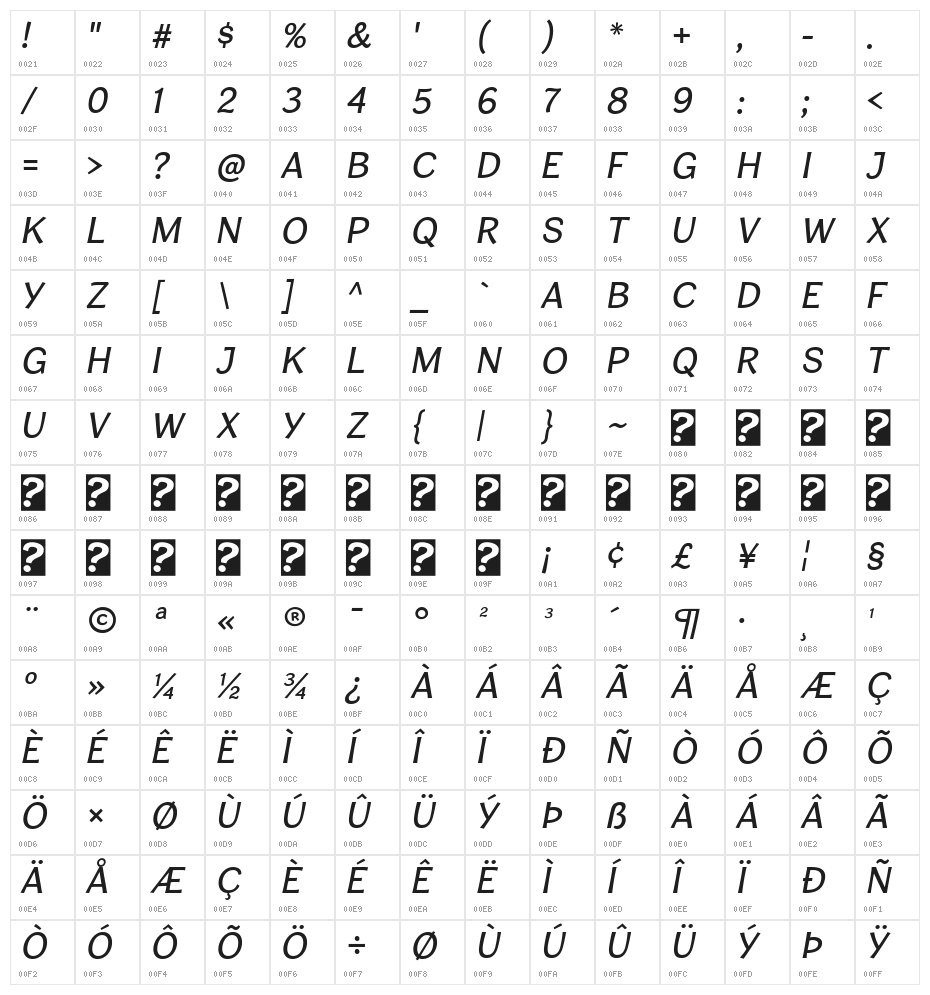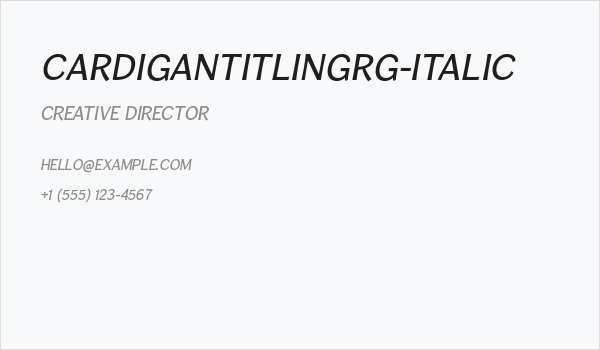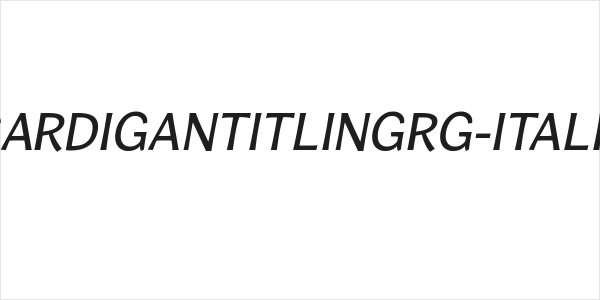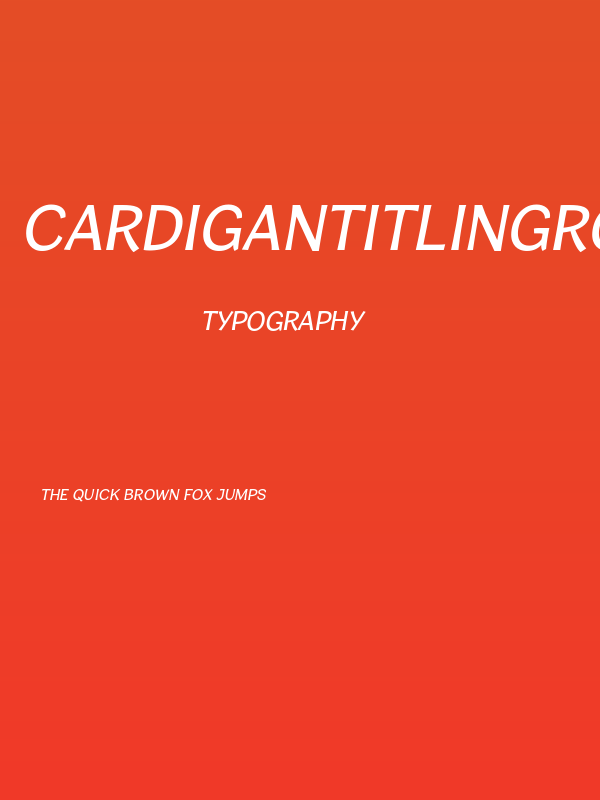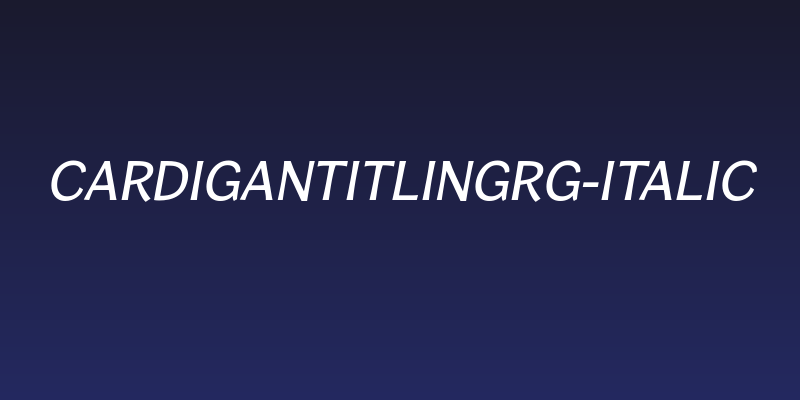
CardiganTitlingRg-Italic Font
CardiganTitlingRg-Italic Description
This font features a sleek, modern design with a slight italic slant, giving it a dynamic and forward-moving appearance. The characters are clean and sans-serif, offering a contemporary and professional look. The strokes are consistent in weight, providing a uniform appearance across all characters. The numbers and special characters maintain the same style, ensuring cohesion throughout. This font is versatile, suitable for both digital and print media, and can be used effectively in various design projects.
| Proposed Projects | Ideal for branding, advertising, web design, and editorial layouts. |